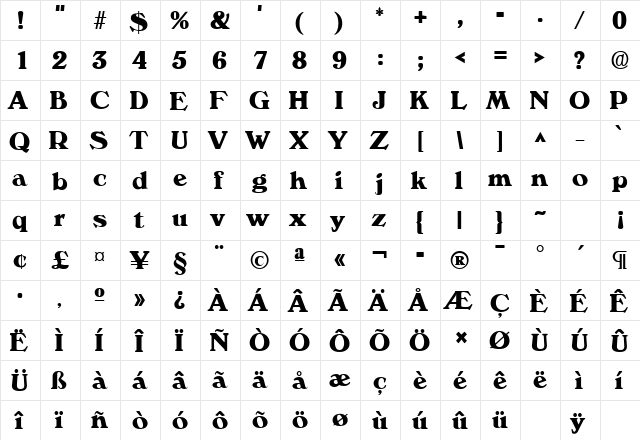
Verona Bold
Design Context for Verona Typeface
Verona is a composed and adaptable typeface that performs quietly and consistently across a wide range of design contexts. Its bold stroke weight gives it real presence on the page.